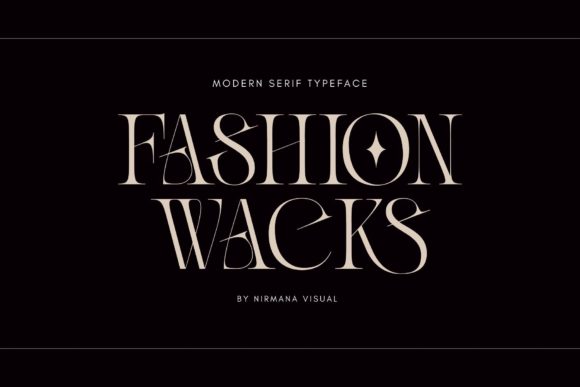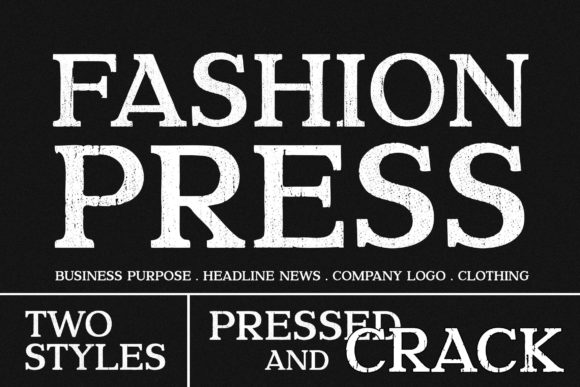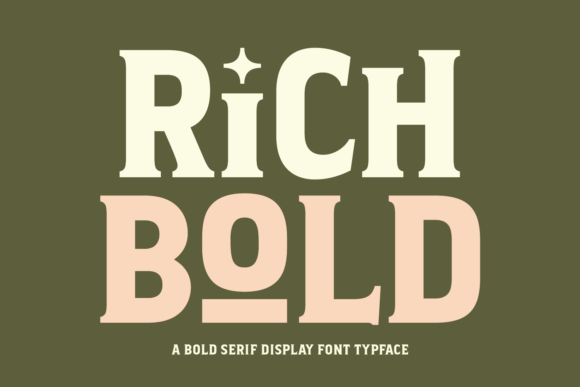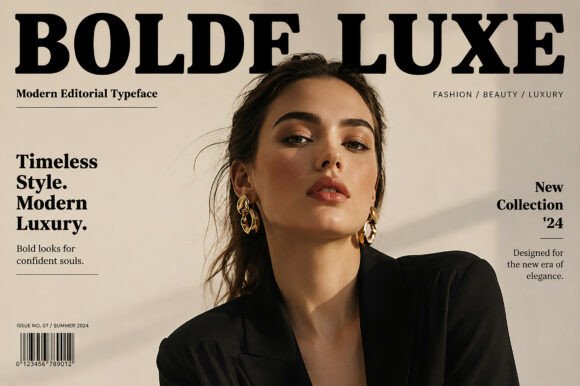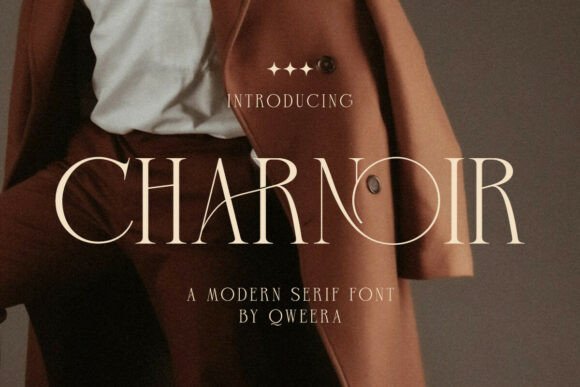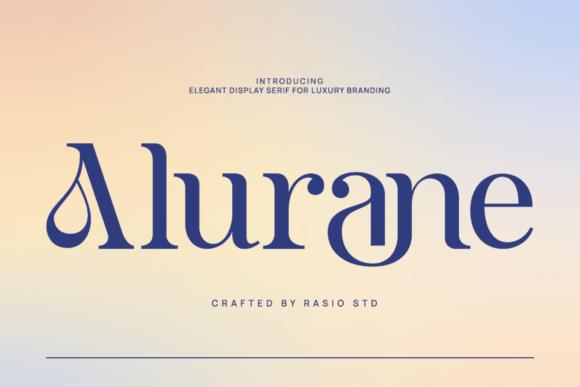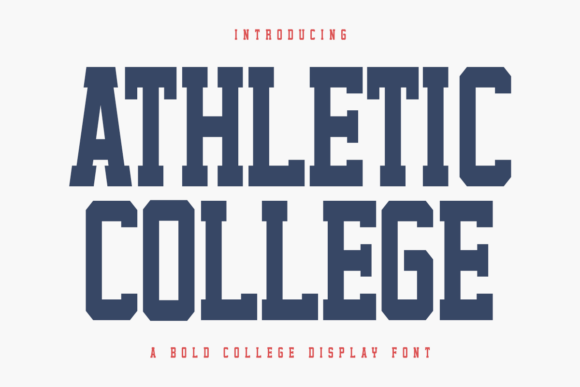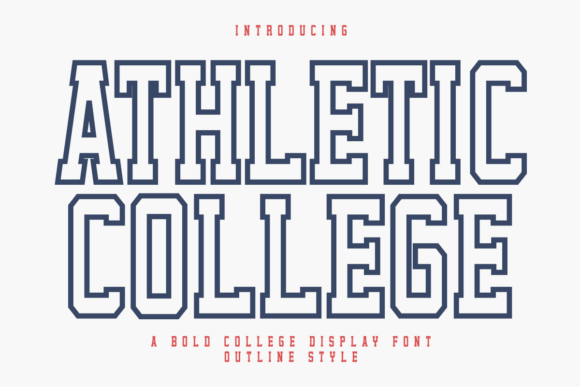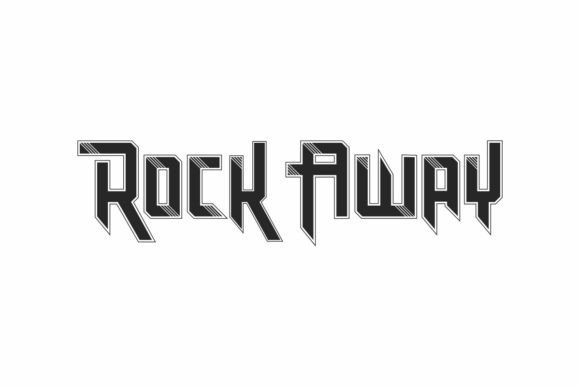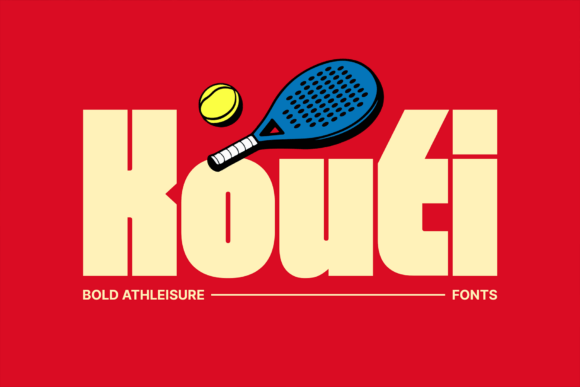
21 Punchy Bold Display Fonts for Posters (2026)
Bold display fonts for posters have to win a room. A poster is read from across a street or a hall, so the type needs weight, contrast and a shape that stays clear when it fills a wall. The best bold display fonts for posters are built for one or two huge words, not paragraphs, and they make those words impossible to ignore.
This guide sorts 21 fonts by style, bold display serifs, athletic faces, high-energy display, condensed and decorative options, so you can match the font to the event.
How to use bold display fonts for posters
A poster is a distance medium. A few rules keep bold display fonts for posters working from across a room.
- One or two words: let the display face carry the hook, not the body.
- Contrast with calm: pair the bold face with a plain sans for details.
- Fill the space: display type wants to be huge, so push it to the edges.
- Test at distance: print a draft and step back to check it reads.
Bold display serifs for poster headlines
Start here. These bold display fonts for posters lead a headline with high-contrast serif drama and real presence.
Fashion Wacks
Fashion Wacks is a bold, elegant serif with character. Among bold display fonts for posters it brings a fashion-led weight to a headline, confident without losing class. Use it large for the hook and a clean sans for the rest. The bold serif forms read clearly at distance. For a fashion or lifestyle poster that wants a strong, elegant headline, Fashion Wacks is a characterful display serif worth trying.
Fashion Pressed
Fashion Pressed is a cool, bold, assertive serif. Among bold display fonts for posters it has a pressed, letterpress-style confidence, good for an editorial or event headline. Use it huge for one line and pair it with a plain sans for detail. The assertive forms read strong at distance. For a poster that wants a bold, confident serif statement, Fashion Pressed is a punchy display serif worth a look.
Rich Bold
Rich Bold is a striking serif display font built to make an impact. Among bold display fonts for posters it is a flexible headline face, bold enough for a wall yet refined enough for a premium event. Use it large for the hook with a clean sans for support. The strong forms read at distance. For a poster that wants a bold, rich serif headline, Rich Bold is a dependable display serif worth trying.
Segara
Segara is a commanding high-fashion display serif with unmistakable presence. Among bold display fonts for posters it leads a fashion or beauty headline with sculpted contrast and confidence. Use it huge for one or two words and let a plain sans handle details. The dramatic forms read across a room. For a poster that wants pure high-fashion drama, Segara is a striking display serif worth a close look.
Bolde Luxe
Bolde Luxe is a sophisticated, opulent serif. Among bold display fonts for posters it brings luxury weight to a headline, suiting a premium launch or gala poster. Use it huge for one or two words and keep the rest plain. The refined bold forms read expensive at distance. For a high-end poster that wants a bold, luxurious serif headline, Bolde Luxe is a graceful display serif worth a look.
Charnoir
Charnoir is a high-class serif that blends dramatic curves with bold weight. Among bold display fonts for posters it brings theatrical drama to a headline, good for fashion, film and event work. Use it large for the hook where the curves can show, with a plain sans for detail. The dramatic forms read striking at distance. For a poster that wants a bold, dramatic serif statement, Charnoir is a distinctive display serif worth trying.
Alurane
Alurane is a high-end editorial display serif with refined character. Among bold display fonts for posters it brings a magazine-cover sophistication to a headline, suiting fashion and culture posters. Use it large for one line and a clean sans for the rest. The editorial forms read polished at size. For a poster that wants an editorial, high-end serif headline, Alurane is a graceful display serif worth a look.
Athletic and collegiate poster fonts
For sport, events and varsity themes, these athletic faces bring a bold, team-jersey energy to a poster.
Athletic College
Athletic College is a bold, powerful collegiate display font with varsity energy. Among bold display fonts for posters it is the team-jersey choice, ideal for sports, events and school-spirit work. Use it huge for the headline and numbers, with a plain sans for detail. The strong forms read from the back of a hall. For a sports or event poster that wants athletic energy, Athletic College is a powerful display font worth trying.